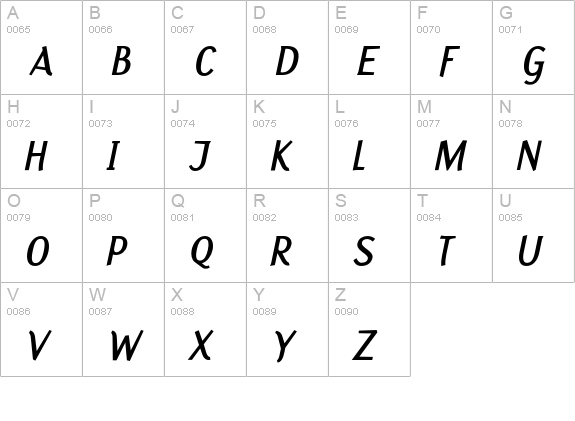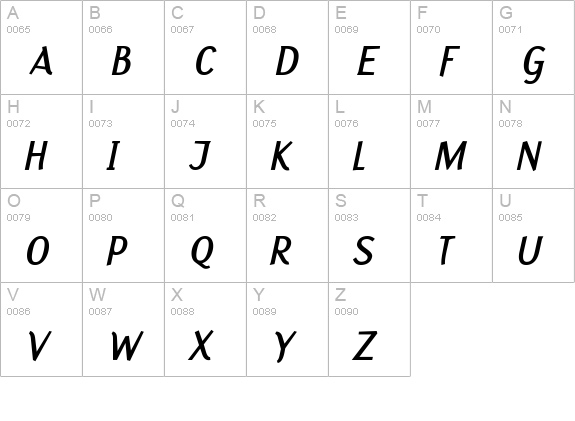
Fasciani-Senza-BoldItalic Font Details
Fasciani Senza Bold Italic is a modern and stylish font that exudes elegance and sophistication. With its bold strokes and slanted italics, this typeface is perfect for making a statement in any design project. The combination of sharp angles and smooth curves creates a unique and eye-catching look that will capture the attention of your audience. This versatile font is ideal for a wide range of applications, from branding and advertising to editorial design and web graphics. Whether you're looking to create a striking headline or add a touch of flair to your text, Fasciani Senza Bold Italic is sure to make an impact. Best of all, this font is available for free download at FontsMarket.com. So you can easily access this stylish typeface and incorporate it into your projects without breaking the bank. Don't miss out on the opportunity to enhance your designs with the bold and beautiful Fasciani Senza Bold Italic font.